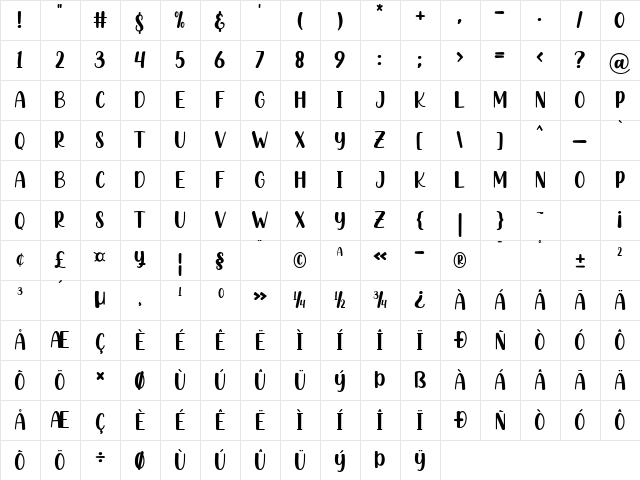
Hashed Browns Regular
Design Context for Hashed Browns Typeface
Hashed Browns is a composed and adaptable typeface that performs quietly and consistently across a wide range of design contexts.